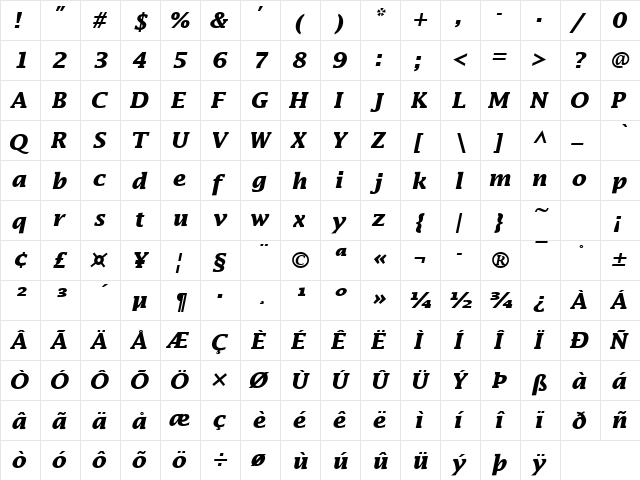
Lucida Becker Bold Italic
Design Context for Lucida Becker Typeface
Lucida Becker takes a measured approach to typography — its balanced proportions and neutral character make it a reliable workhorse for both digital and print work. The slanted form adds forward momentum and visual energy. Its bold stroke weight gives it real presence on the page.
Pro Tip: Try Lucida Becker for annotation and caption copy alongside an upright companion — the contrast in angle creates a dynamic but ordered typographic system.